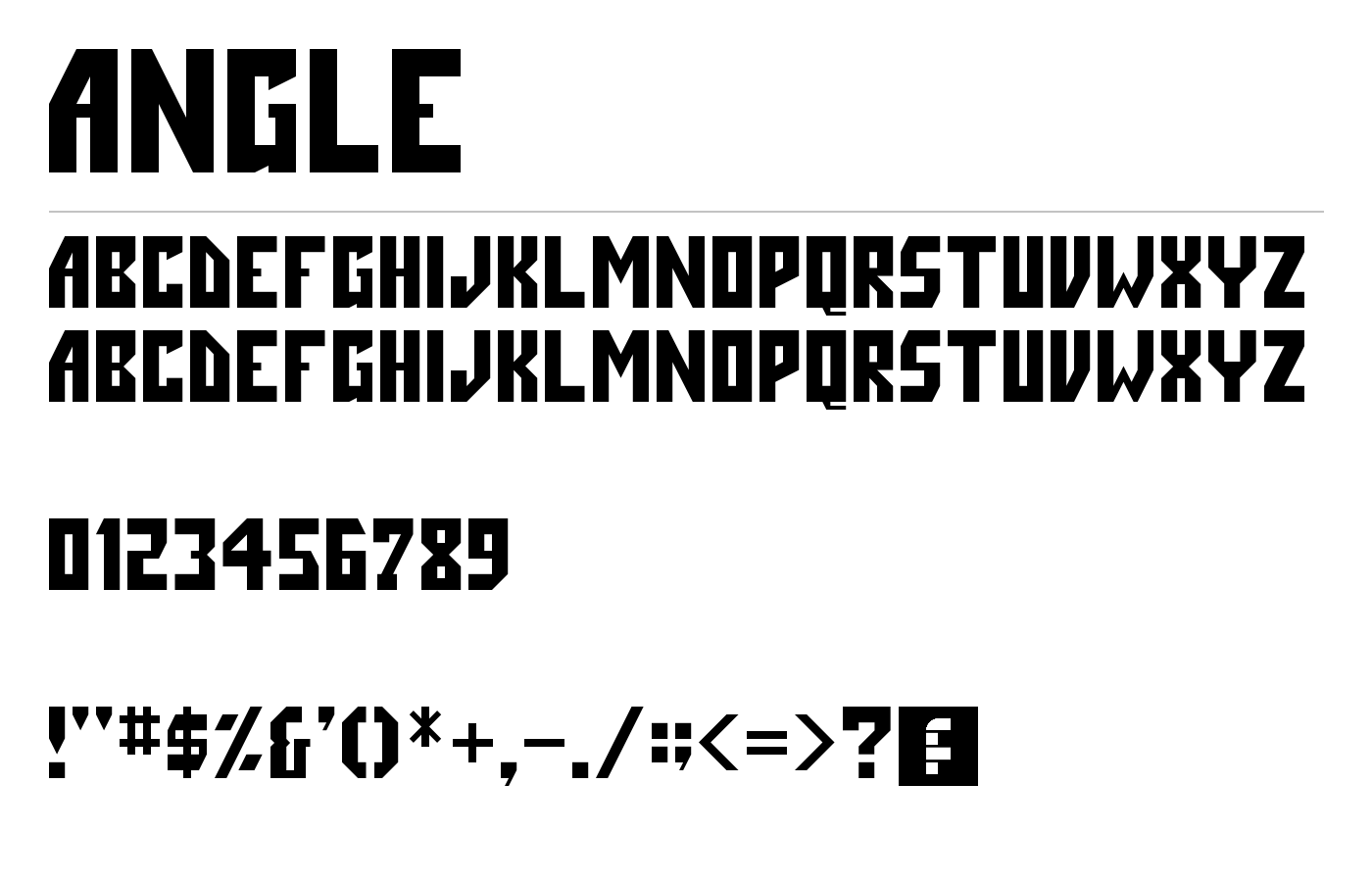
Angle is a bold, geometric sans serif font characterized by its sharp, angular cuts and condensed letterforms, giving it a strong, industrial feel. Its high stroke contrast and blocky shapes make it perfect for striking headlines, logos, and branding that demand a modern, edgy look with a touch of futuristic style. This font works best in display contexts where its unique, commanding presence can captivate attention and convey confidence.
Angle Font
About Angle Font